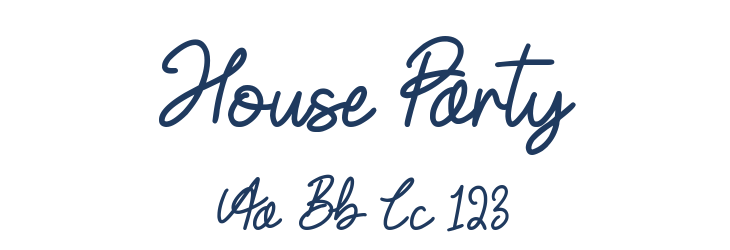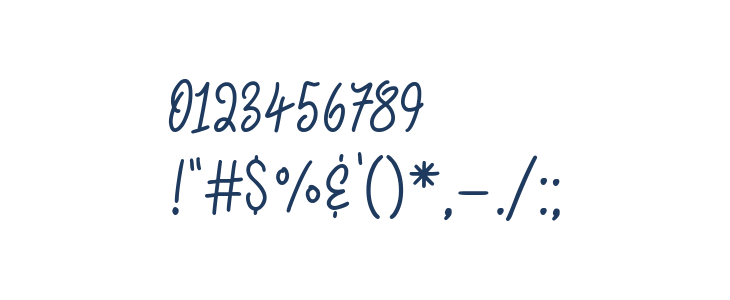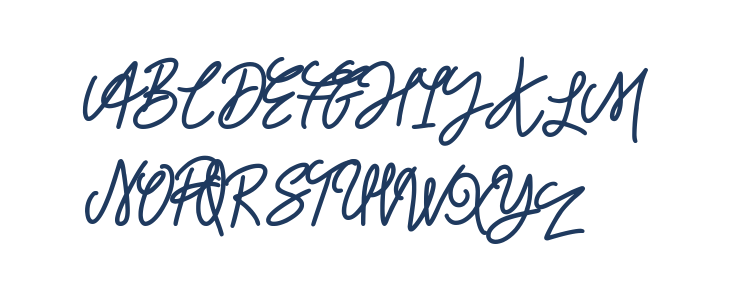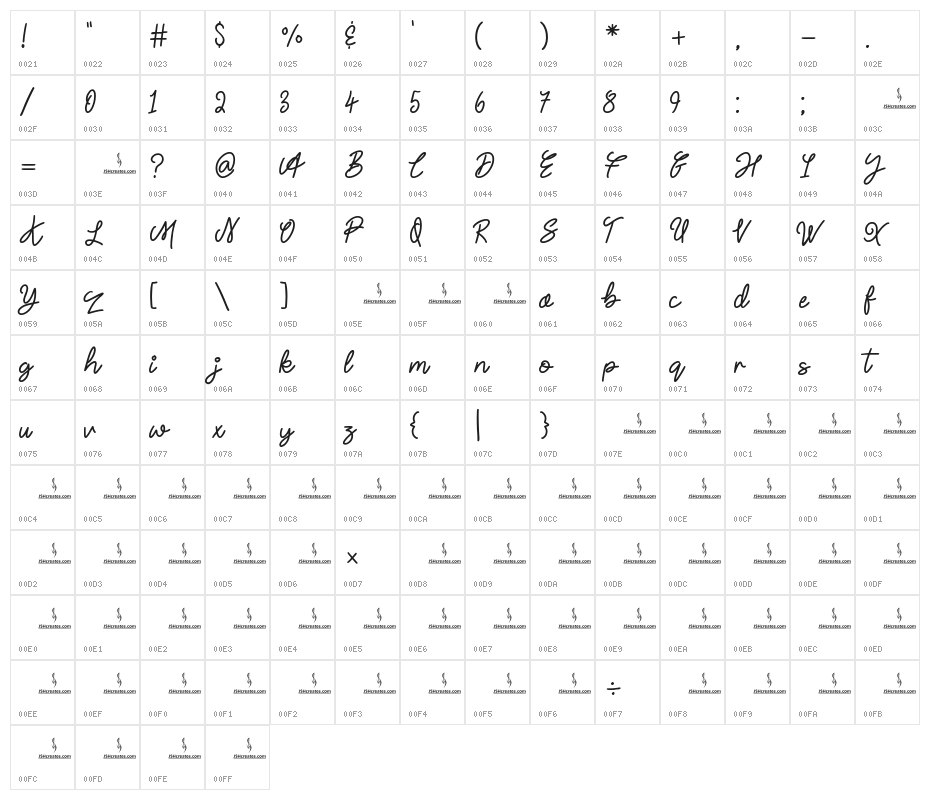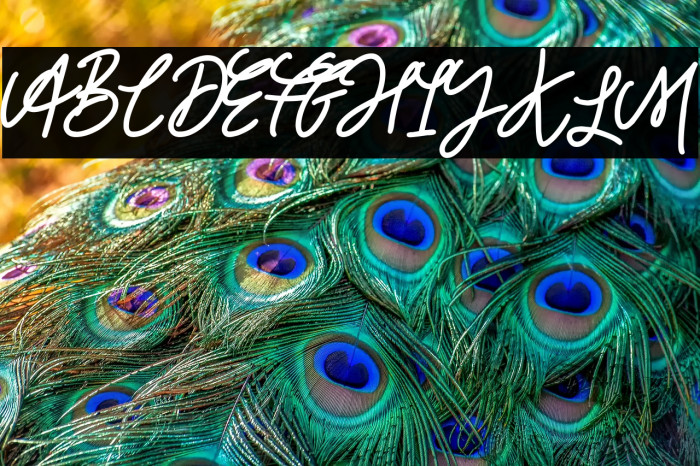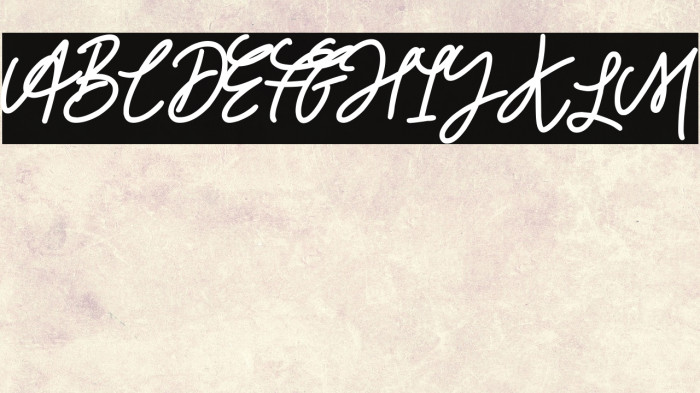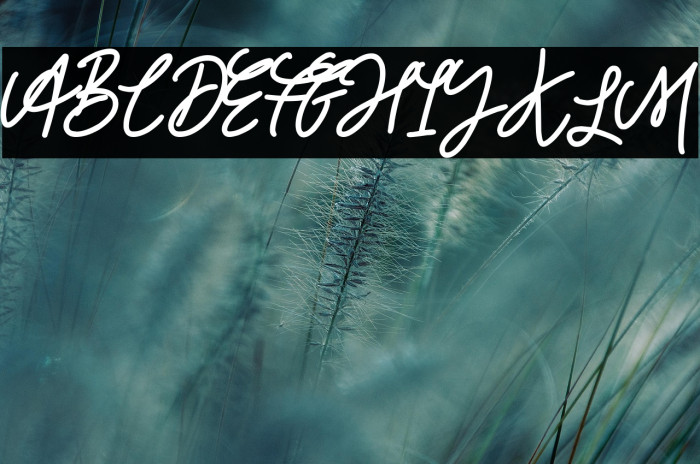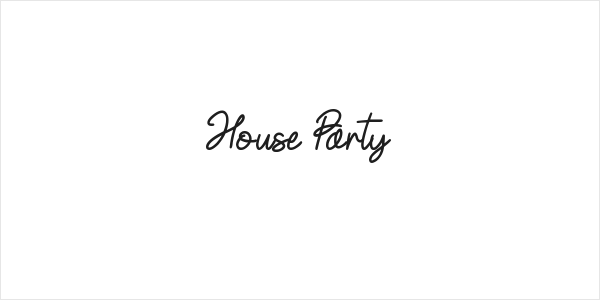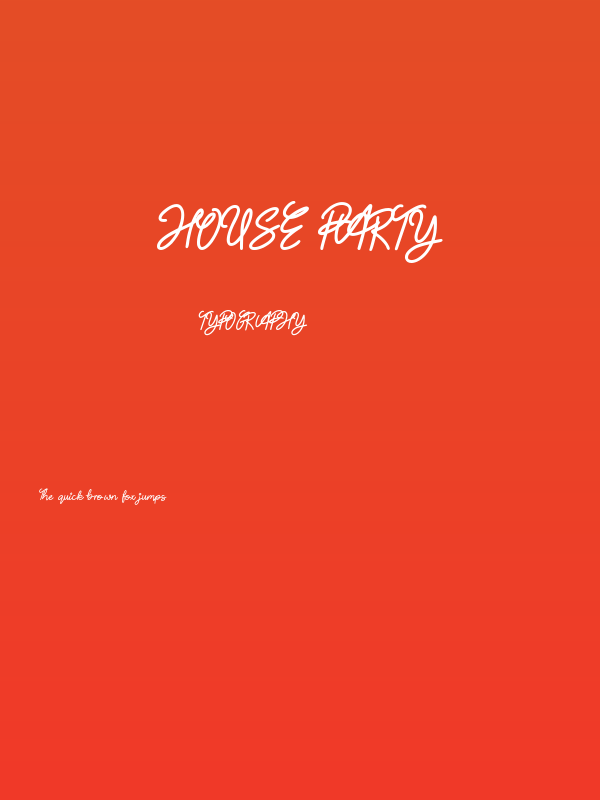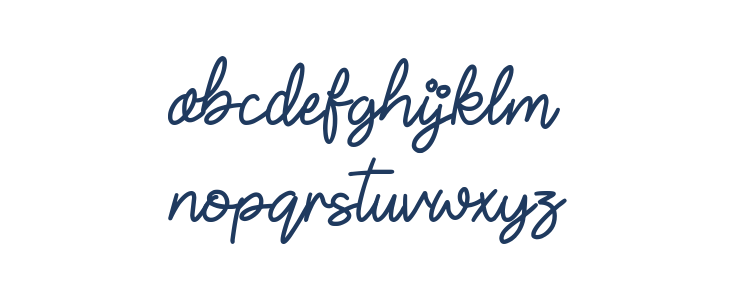
House Party Font
House Party Description
A lively, handwritten script font with fluid, connected strokes and a casual, energetic feel. The characters are slightly slanted, with variable stroke thickness and playful loops, evoking a personal, informal touch.
| Overall Style | Decorative, Casual, Playful |
| Use Case | Headlines, Invitations, Posters, Social Media |
| Proposed Projects | Party invitations, greeting cards, event posters, social media graphics, playful branding. |